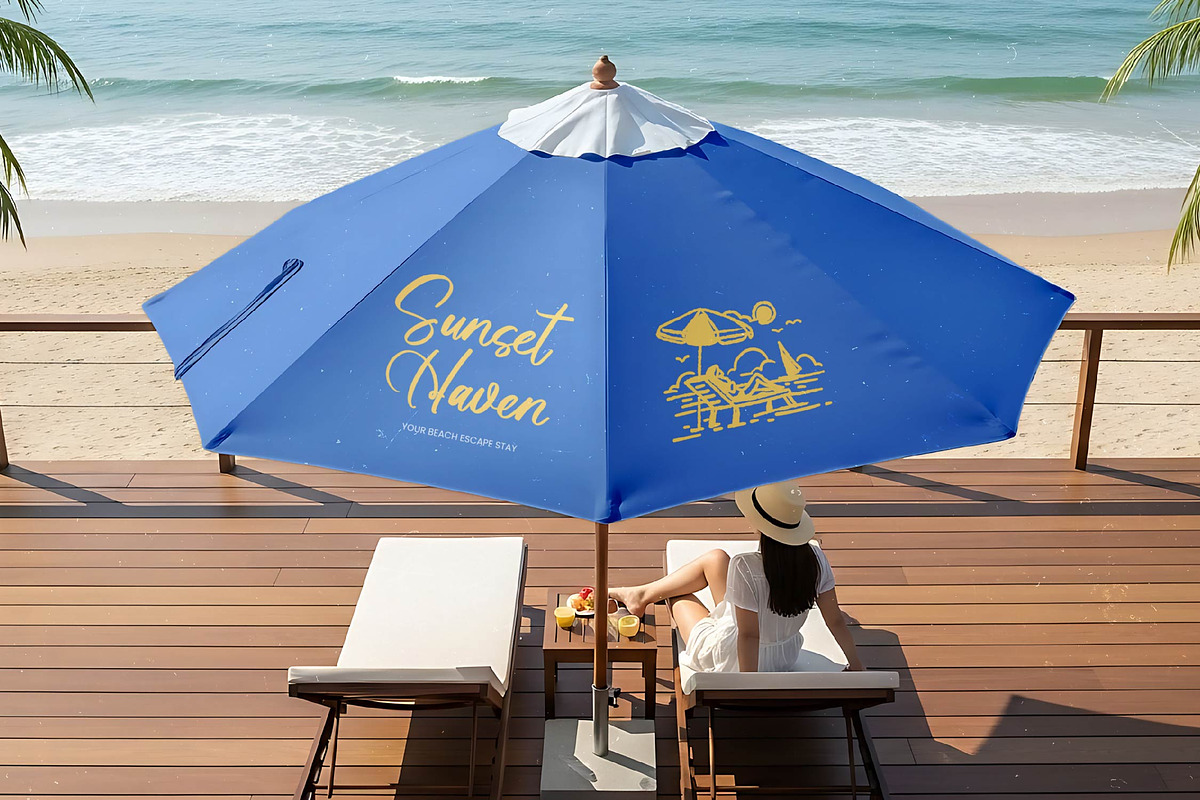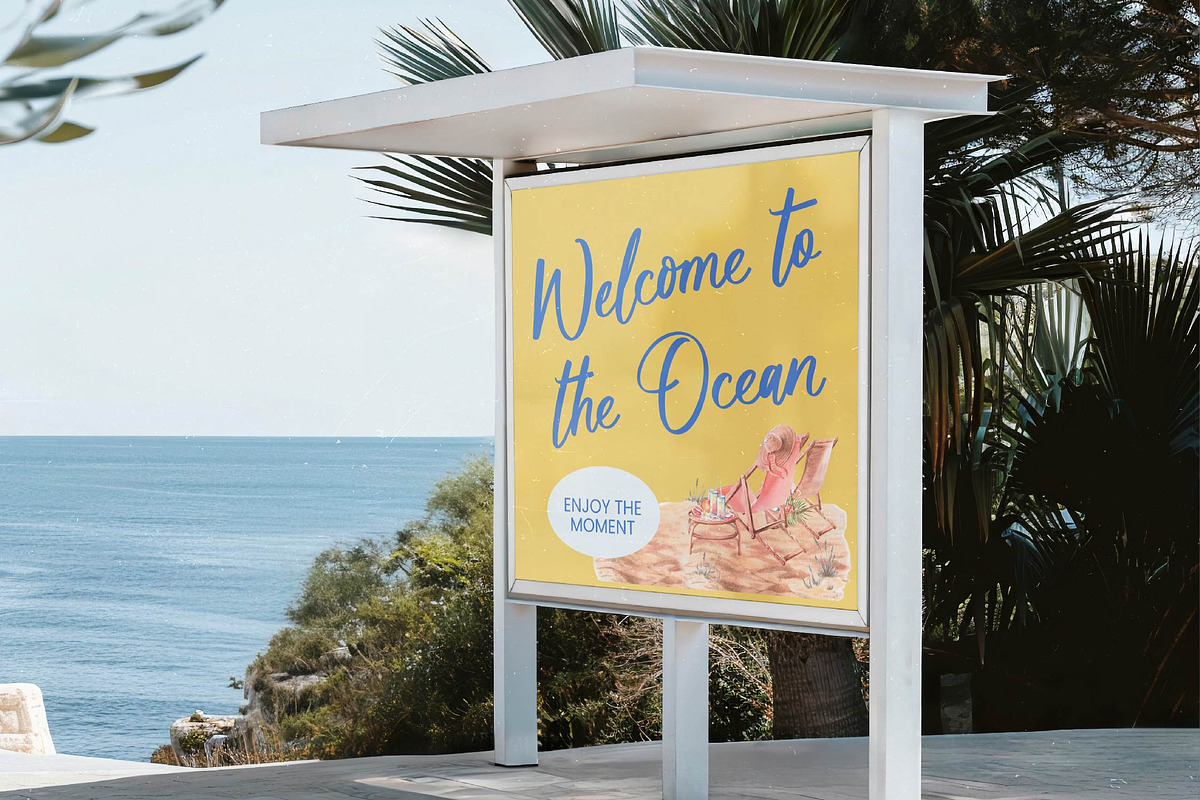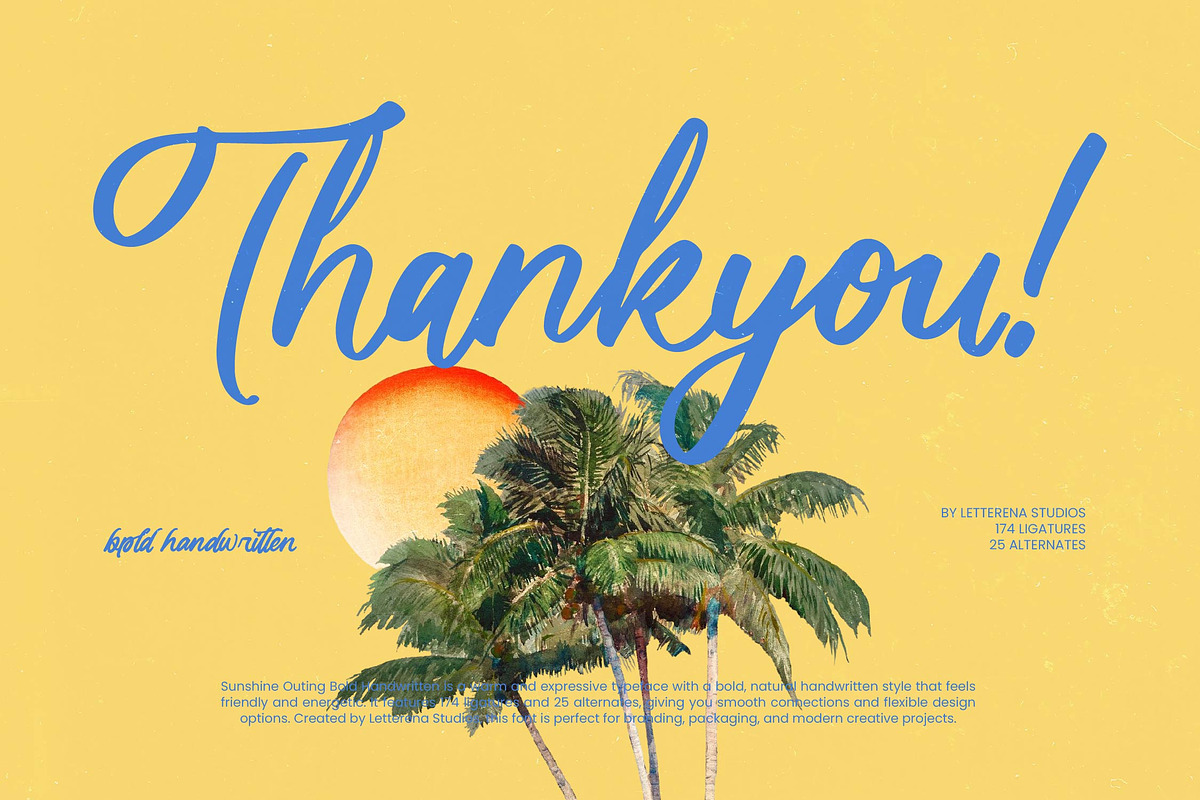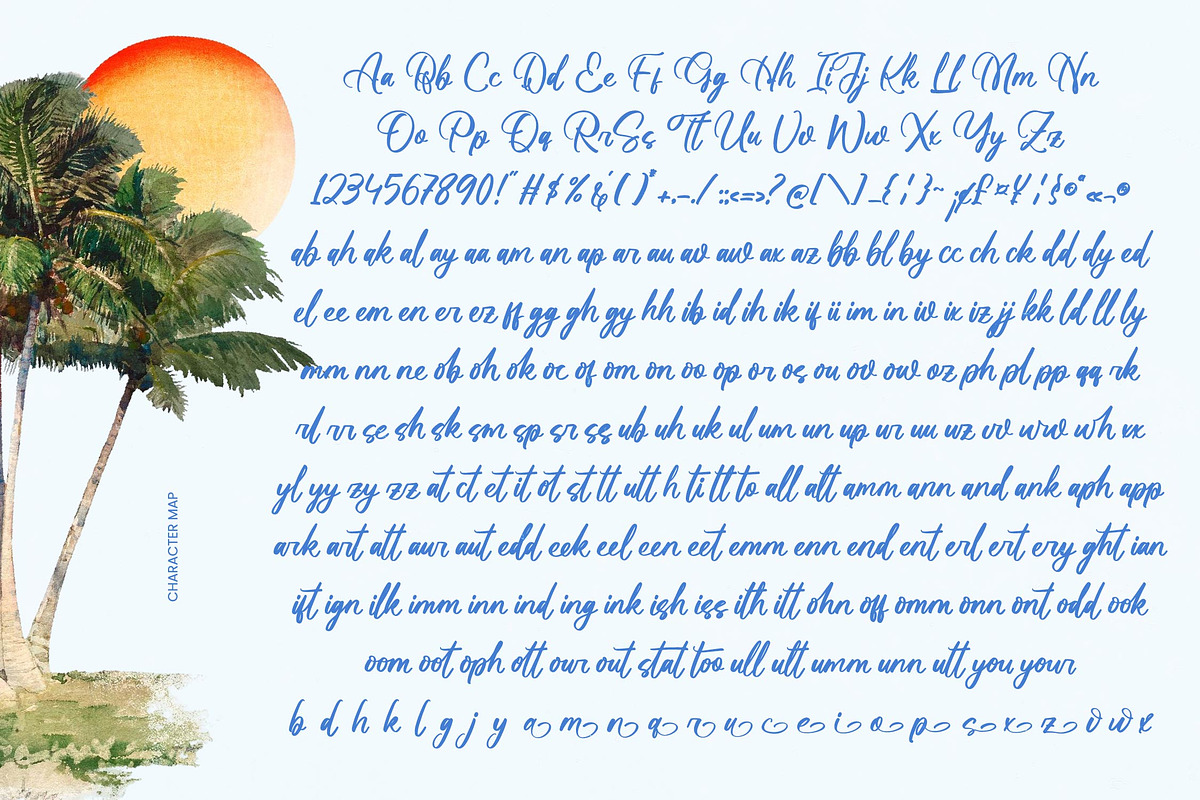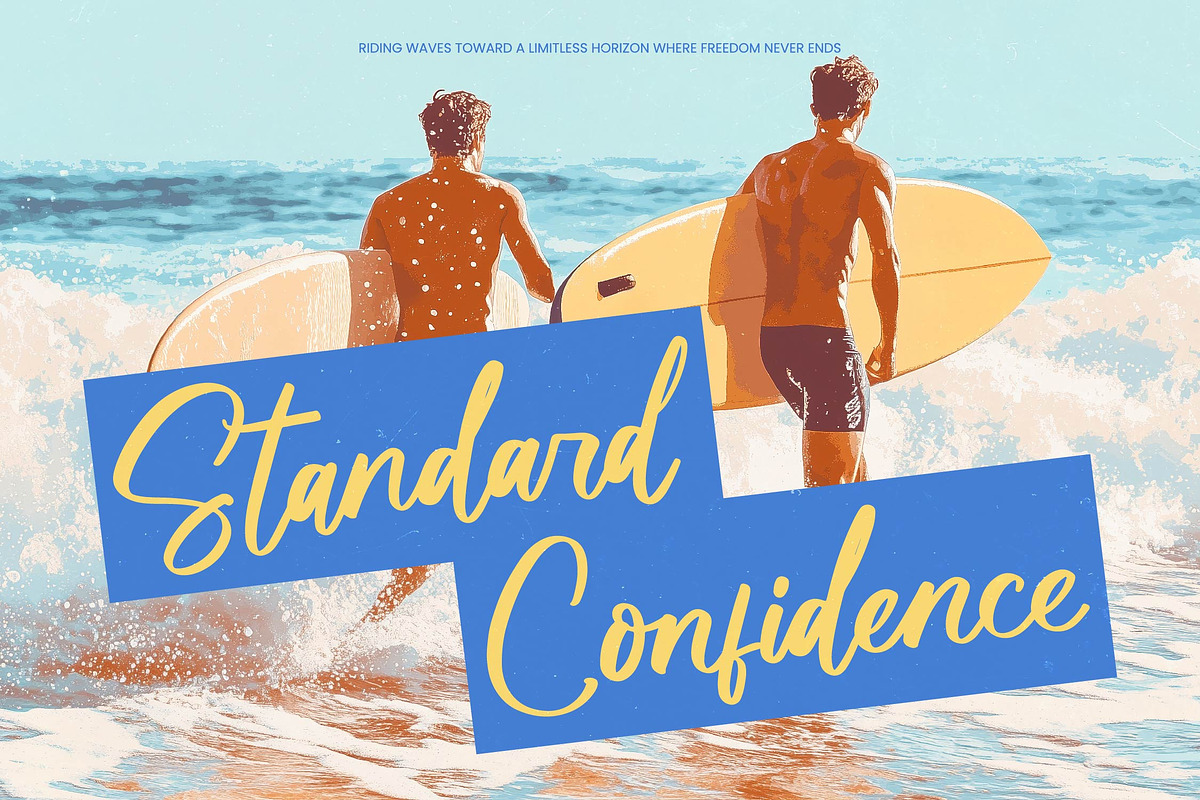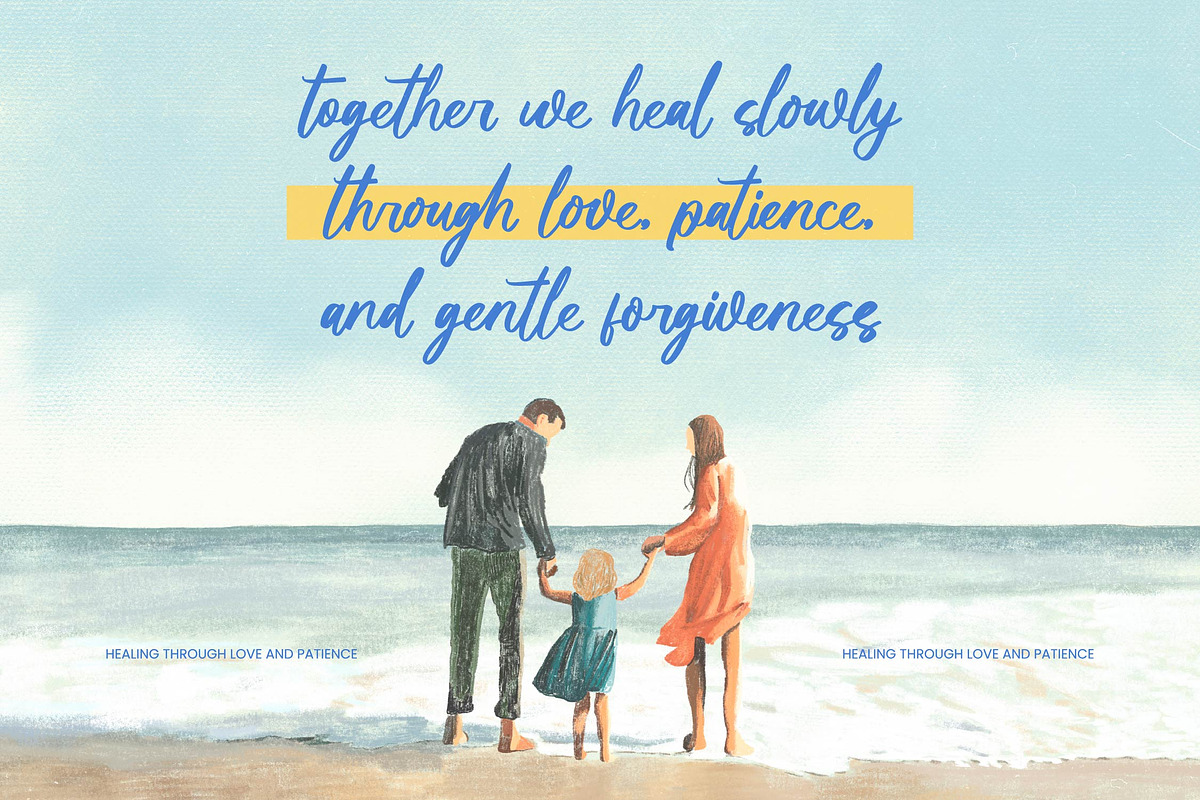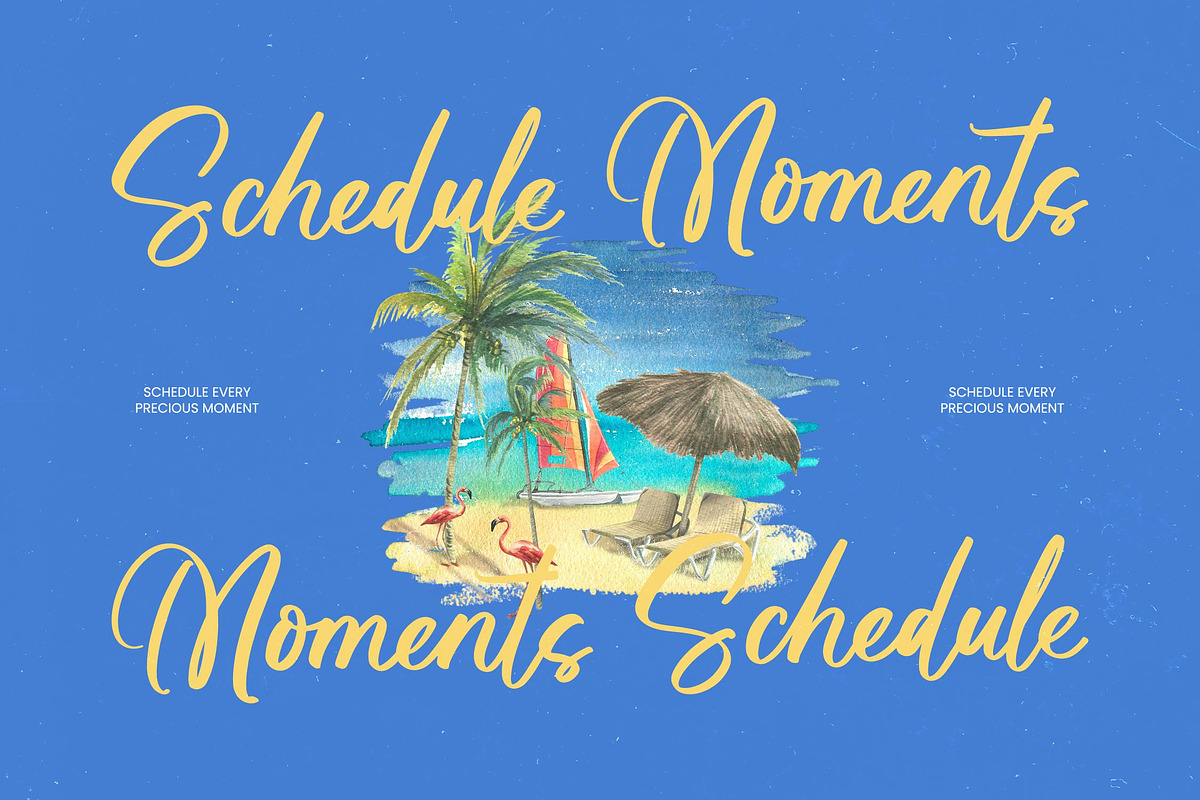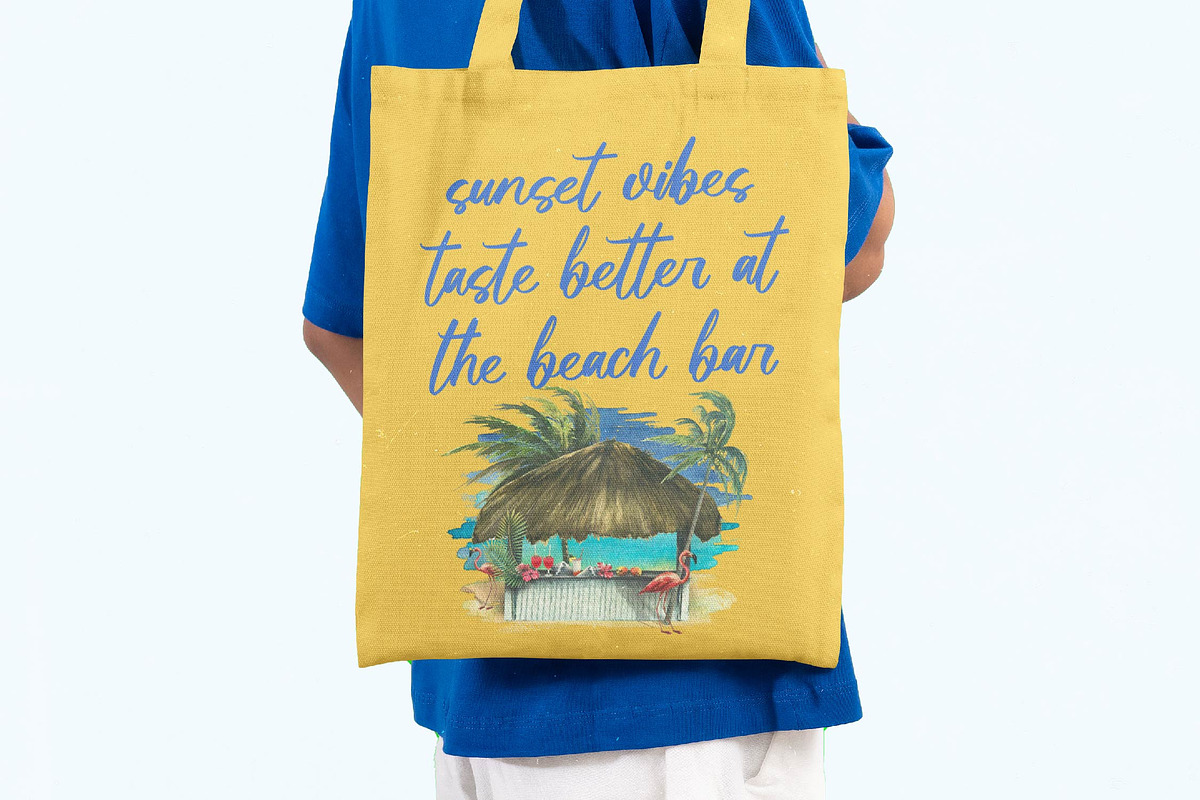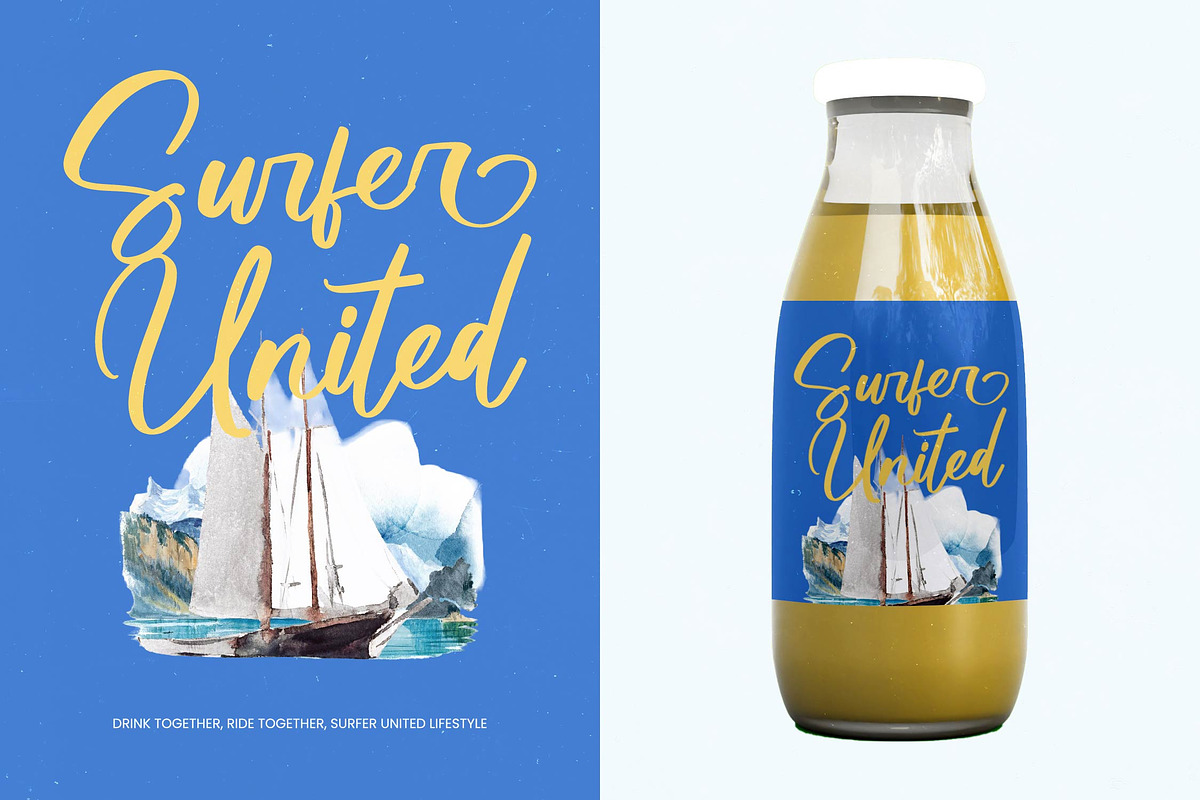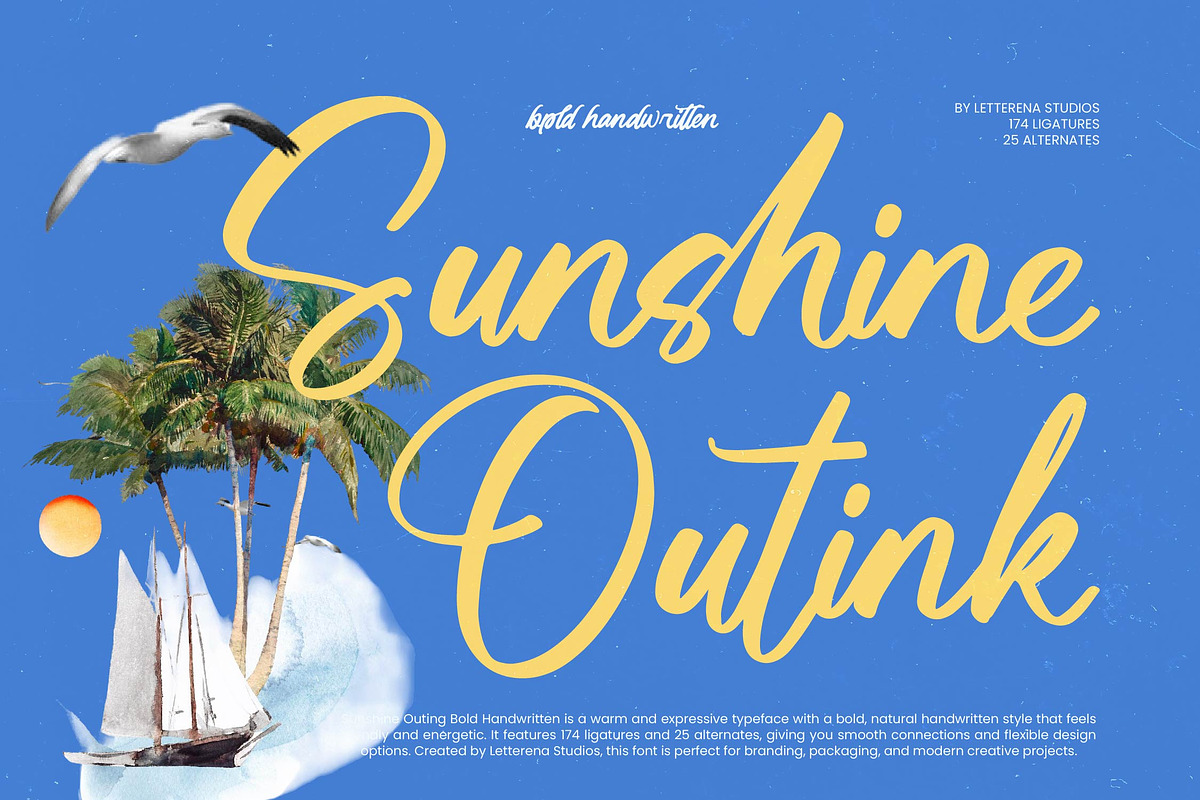
Sunshine Outink Bold Handwritten
Sunshine Outink - Bold Handwritten , Experience the perfect blend of warmth and vibrant energy with Sunshine Outink - Bold Handwritten, a typeface that redefines modern script design. This expressive font boasts an organic flow and bold aesthetic, capturing an authentic handcrafted feel that immediately engages the viewer. Its confident strokes and natural rhythm provide a personal touch, making it an ideal choice for creators looking to establish a unique visual identity that stands out in a crowded marketplace.
Unlock a world of creative possibilities as Sunshine Outink - Bold Handwritten serves as the ultimate choice for lifestyle branding and high-impact packaging. This versatile font is perfect for editorial design, summer-themed campaigns, and social media graphics where a distinctive personality is paramount. Whether applied to promotional posters or merchandise design, its bold handwritten style ensures your message is delivered with unparalleled clarity and artistic sophistication.
Expand your brand’s global footprint with ease through a typeface built for international versatility and typographic excellence. With its extensive multilingual support, Sunshine Outink - Bold Handwritten adapts seamlessly across global markets, making it incredibly versatile for international projects. Featuring 174 custom ligatures and 25 alternates, it provides unmatched flexibility, allowing designers to maintain a consistent brand identity while navigating diverse linguistic requirements.
Transform your creative projects into memorable brand experiences by integrating this premium design asset into your toolkit. Sunshine Outink - Bold Handwritten offers the ideal balance of high-contrast legibility and playful energy, making it an essential resource for modern creative studios. By choosing Sunshine Outink - Bold Handwritten, you are investing in a timeless aesthetic that guarantees commercial success and a polished professional finish for every application.